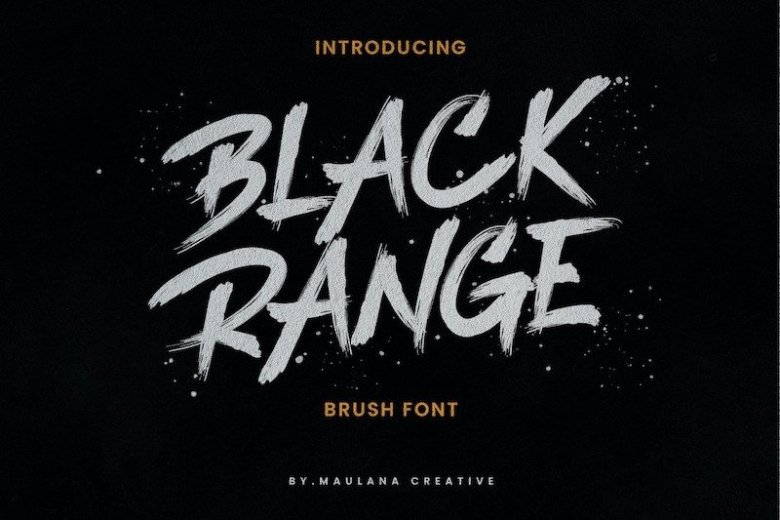
Black Range Brush Font
Black Range Brush Font is Display font manufactured by Maulana Creative with brush style. This font perfect for branding projects, logo, tshirt designs, social media posts, advertisements, product packaging, product designs, label, watermark, invitation, stationery and any projects.